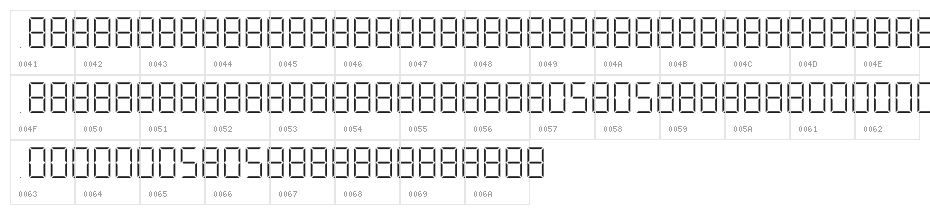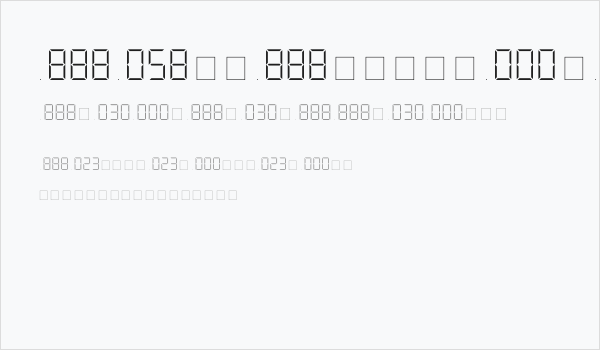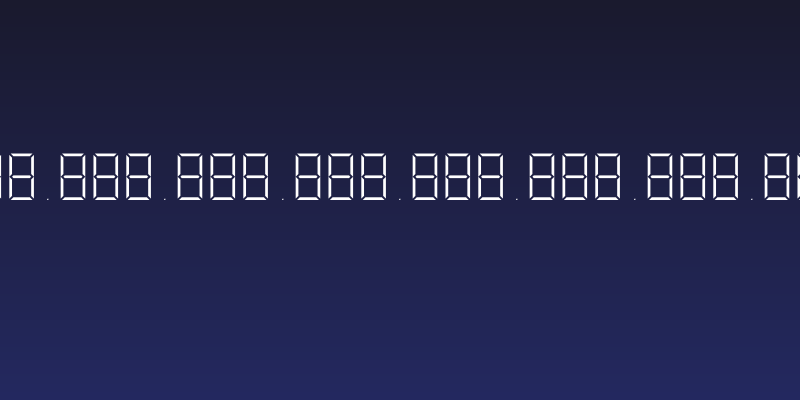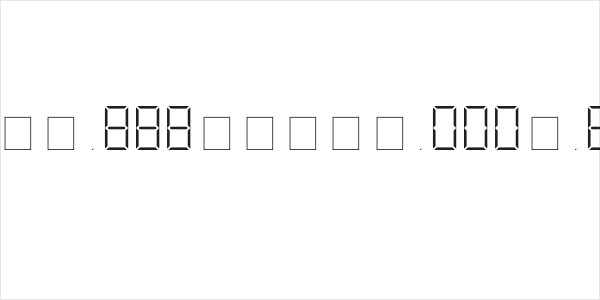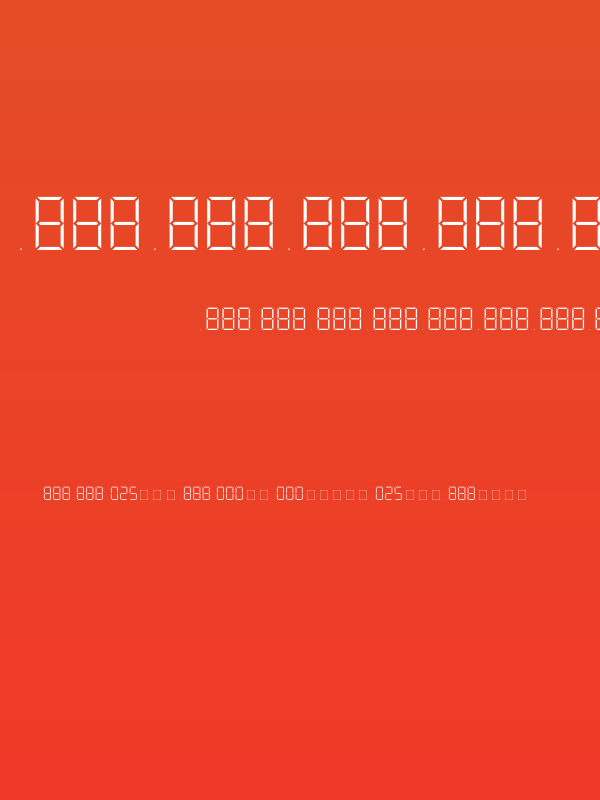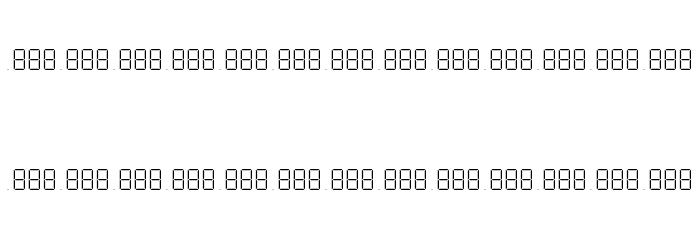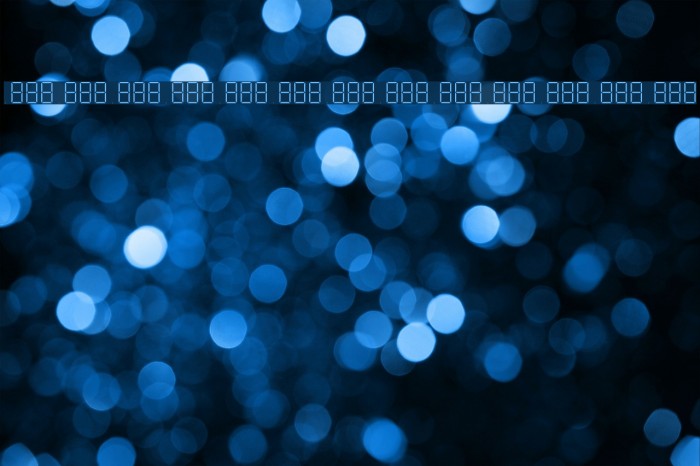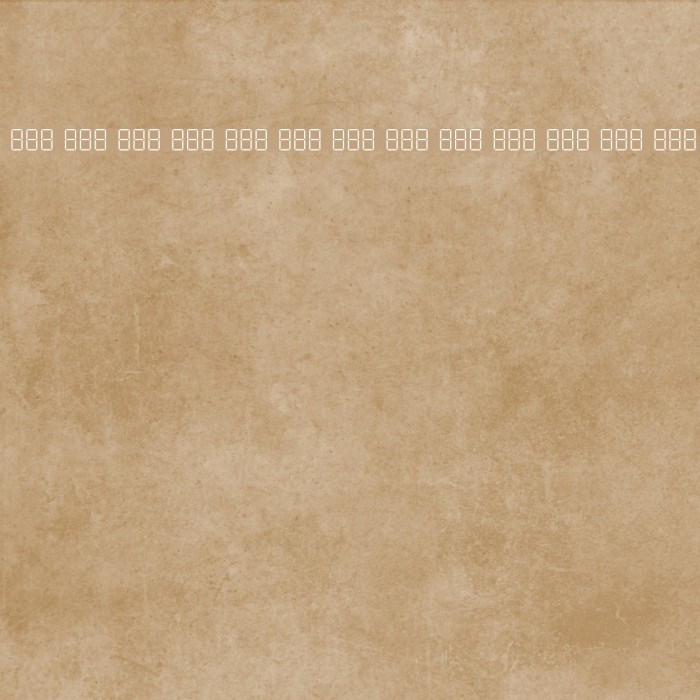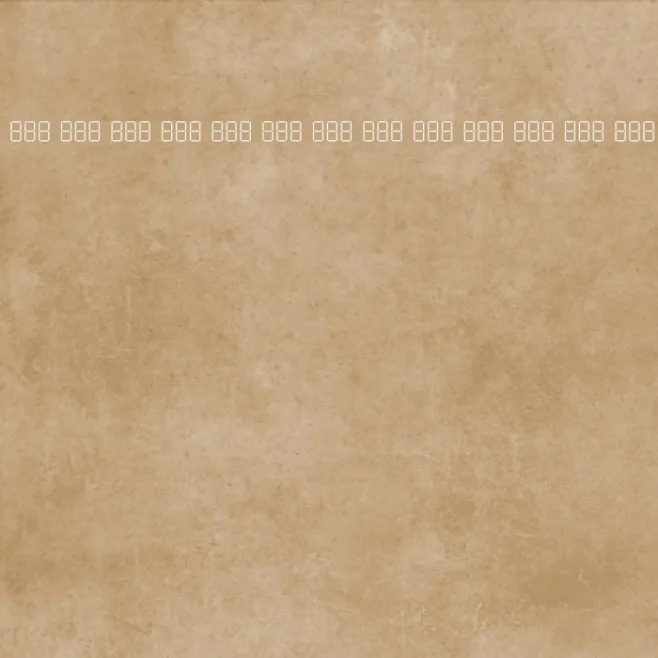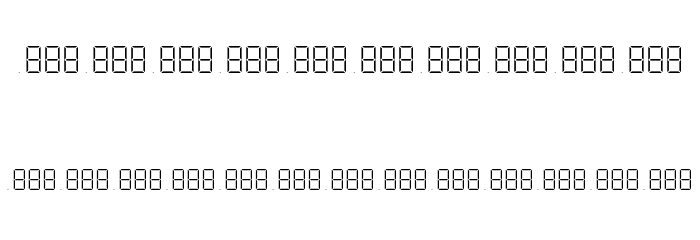
TestInstructions Font
TestInstructions Description
This font is a digital-style typeface that mimics the appearance of LED or LCD displays. Each character is composed of a series of rectangular segments, giving it a blocky and geometric look. The design is reminiscent of vintage digital clocks or calculators, providing a sense of nostalgia and technological flair. The characters are uniformly spaced, maintaining a consistent width across all letters and numbers. This uniformity enhances readability in digital contexts. The font is particularly effective for conveying a modern, tech-oriented aesthetic.
| Use Case | Headlines, Digital displays, Tech-themed designs |
| Proposed Projects | Perfect for digital interfaces, tech-themed posters, retro designs, or any project requiring a futuristic or technological feel. |